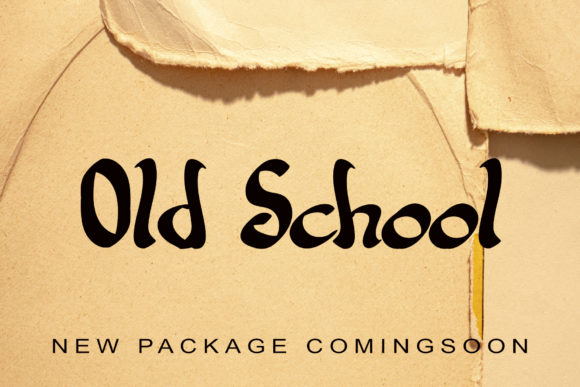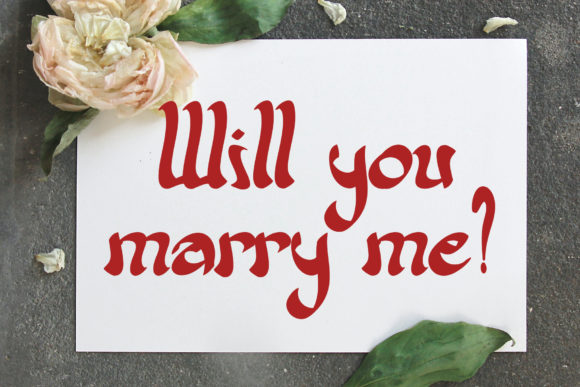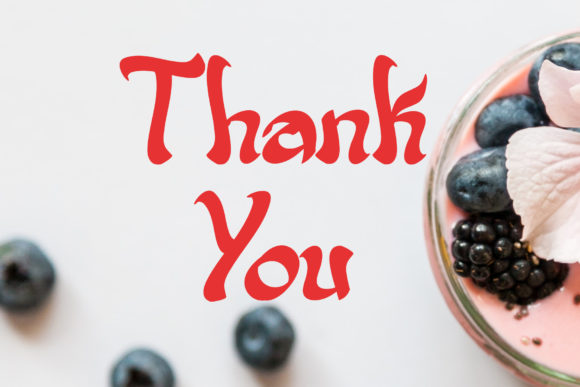
The Blackcurrant Font: A Game-Changer for Your Designs
I’ll never forget the time I was working on a project for a client who wanted a unique and trendy font to match their brand’s personality. I had spent hours scouring the internet for the perfect font, but nothing seemed quite right. That was until I stumbled upon the Blackcurrant font. ✨ It was love at first sight! The bold, yet elegant design instantly caught my eye, and I knew I had found the perfect fit for my client’s project.
What I Love About Blackcurrant Font
- ✅ Extremely versatile: Blackcurrant font looks stunning on a variety of informal or casual designs, such as greeting cards, logos, business cards, and more.
- ✅ Unique touch: The font’s original design adds a touch of personality to any project, making it stand out from the crowd.
- ✅ Easy to read: Despite its bold design, the Blackcurrant font is surprisingly easy to read, even in smaller sizes.
- ✨ Aesthetic appeal: The font’s elegant design makes it perfect for a wide range of creative projects.
While the Blackcurrant font is an amazing addition to any design project, there are a few things to keep in mind. 🤔
- ⚠️ Limited use in formal designs: The Blackcurrant font’s bold design may not be suitable for more formal projects, such as corporate reports or academic papers.
- ⚠️ May not work well in small sizes: While the font is generally easy to read, it may not be the best choice for very small text sizes, such as captions or fine print.
The Story Behind Blackcurrant Font
The Blackcurrant font was designed by a team of creative designers who wanted to create a unique and trendy font that would add a touch of personality to any design project. The font’s bold and elegant design was inspired by the beauty of nature and the world around us. 🌿
Q: What is the Blackcurrant font?
A: The Blackcurrant font is a modern and trendy display font that’s perfect for a wide range of creative projects.
Q: Is the Blackcurrant font easy to read?
A: Yes, despite its bold design, the Blackcurrant font is surprisingly easy to read, even in smaller sizes.